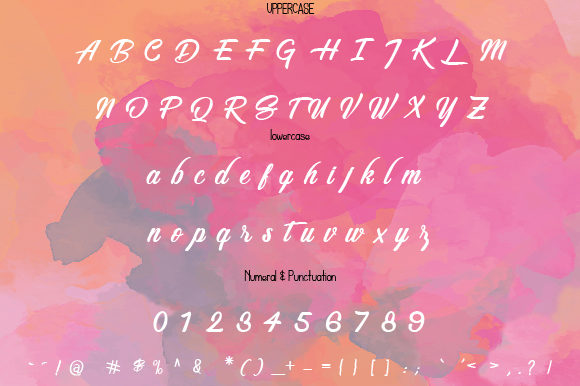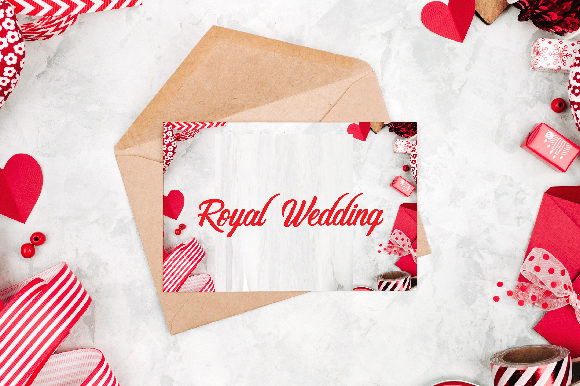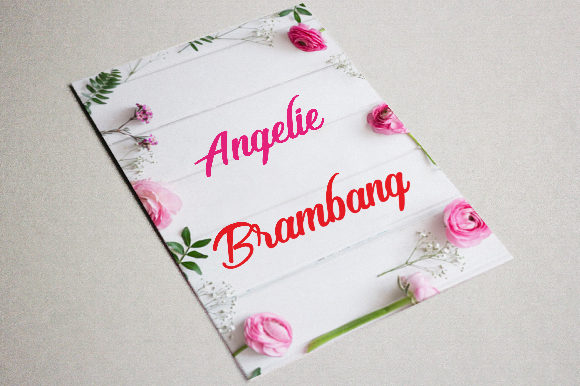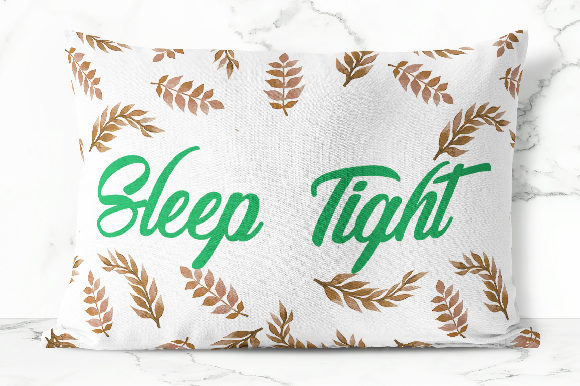
Light of Eye Font
About Light of Eye Font
The Light of Eye is a solid brush typeface. It has a modern style with an elegant touch.
It can be used for various purposes, such as headings, signature’s, logos, wedding invitations, t-shirts, letterheads, signage’s, labels, news, posters, badges, and much more!